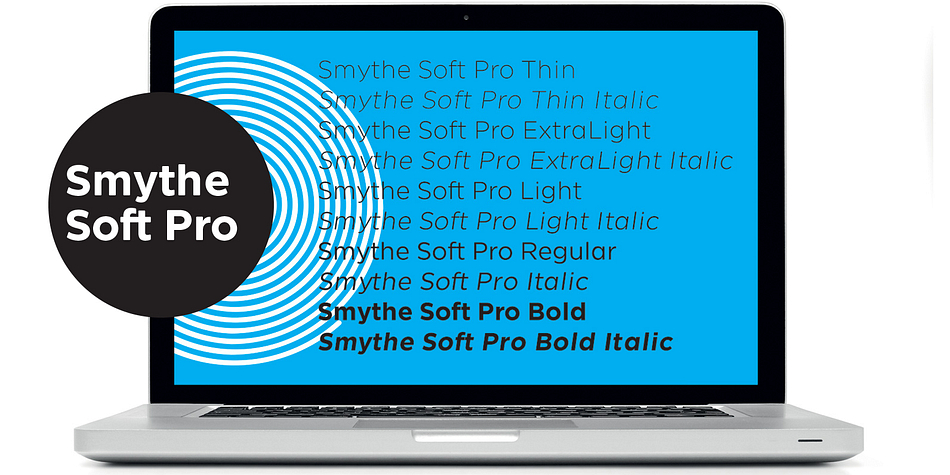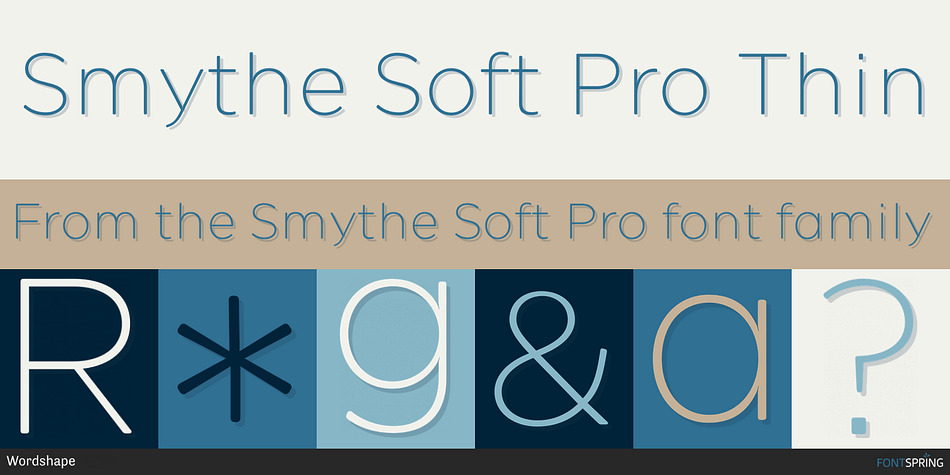
Smythe Soft Pro Thin
Designed by Ian Lynam, Smythe Soft Pro is a sans serif font family. This typeface has ten styles and was published by Wordshape.
SmytheSoft Pro is a contemporary workhorse sans serif family that is eminently readable on-screen and in print. It is an updated display version of our popular family SmytheSans with custom rounded terminals, rigorously spaced and kerned. SmytheSoft Pro includes Western, Central and Eastern European and Vietnamese character sets and is offered in five Roman and Italic weights: thin, ultra light, light, regular and bold.
SmythSoft Pro features a large x-height, ample yet economic spacing for capitals, and subtle ink traps for less-than-perfect printing conditions (which can be exploited as design features at large scale). All of the capitals from the old Smythe Sans Display family are folded in to SmytheSoft Pro as OpenType accessible stylistic alternates—NASA-inspired space age alternate caps galore! The original Smythe Sans family featured Italic and Oblique cuts—in SmytheSoft Pro, the more calligraphic italic characters are available via OpenType-accessible stylistic sets. Each weight of SmytheSoft Pro features a bespoke paragraph mark which varies from weight-to-weight and includes over 100 ornaments, kinetic rules, symbols and pattern-making glyphs so that one might use SmytheSoft Pro as a complete design kit.
The lighter weights are slightly slimmer than the regular and bold weights to give the typeface more of a vertical feel, inviting readers’ to rapidly read typeset text with a maximum of contrast and a minimum of optical dazzle. All work well on-screen as webfonts and in print as book type. Each is hinted with accuracy and kerned with precision.
SmytheSoft Pro is an eminently readable typeface, particularly at small sizes on-screen. The strokes throughout are modulated to enhance humanist expression, with high-contrast horizontal slices taken out of certain letterforms to keep readers’ eyes moving forward in text. The typeface’s tendency toward a tall x-height was carried through the single-storied font with more horizontal characteristics for enhanced readability while being super-friendly and bright in appearance.
Features of SmytheSoft Pro:
– complete Western, Central and Eastern European characters sets optimized for text typesetting
– radically improved spacing guaranteeing beautiful results in print and on screen for the Czech, English, Hungarian, Croatian, Esperanto, Maltese, Romanian, Turkish, Albanian, French, Portuguese, Spanish, Basque, Bulgarian, Finnish, Swedish, Norwegian and Vietnamese languages
– all lowercase characters have an enlarged x-height, creating less optical dazzle than typefaces like Futura, Neutra or Avant Garde
– ink traps to enhance smooth printing when using less-than-optimum production processes like Risograph or if a press is overloaded with ink
– retro-futuristic alternate characters for most capitals
– 100+ ornament, kinetic rules, forms, symbols and pattern-making glyphs